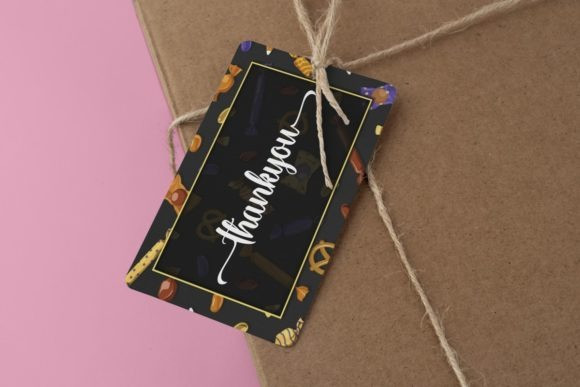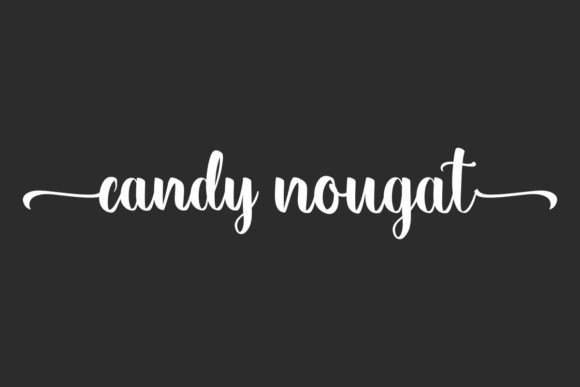
Candy Nougat Font
Candy Nougat Script Font is a lovely and well-balanced script font.
It is perfect for product packaging, branding project, magazine covers, social media, wedding, or just used to express words above the background. This font is PUA encoded which means you can access all of the glyphs and swashes with ease!